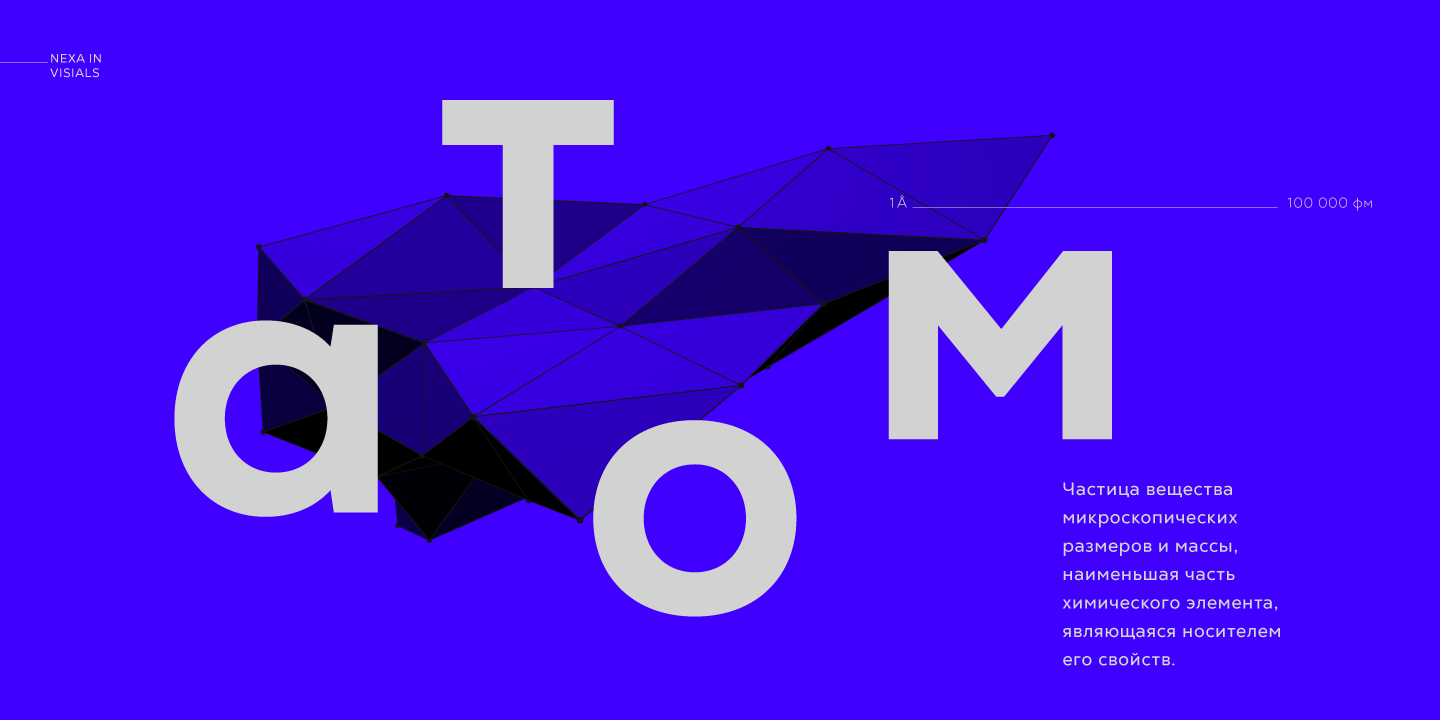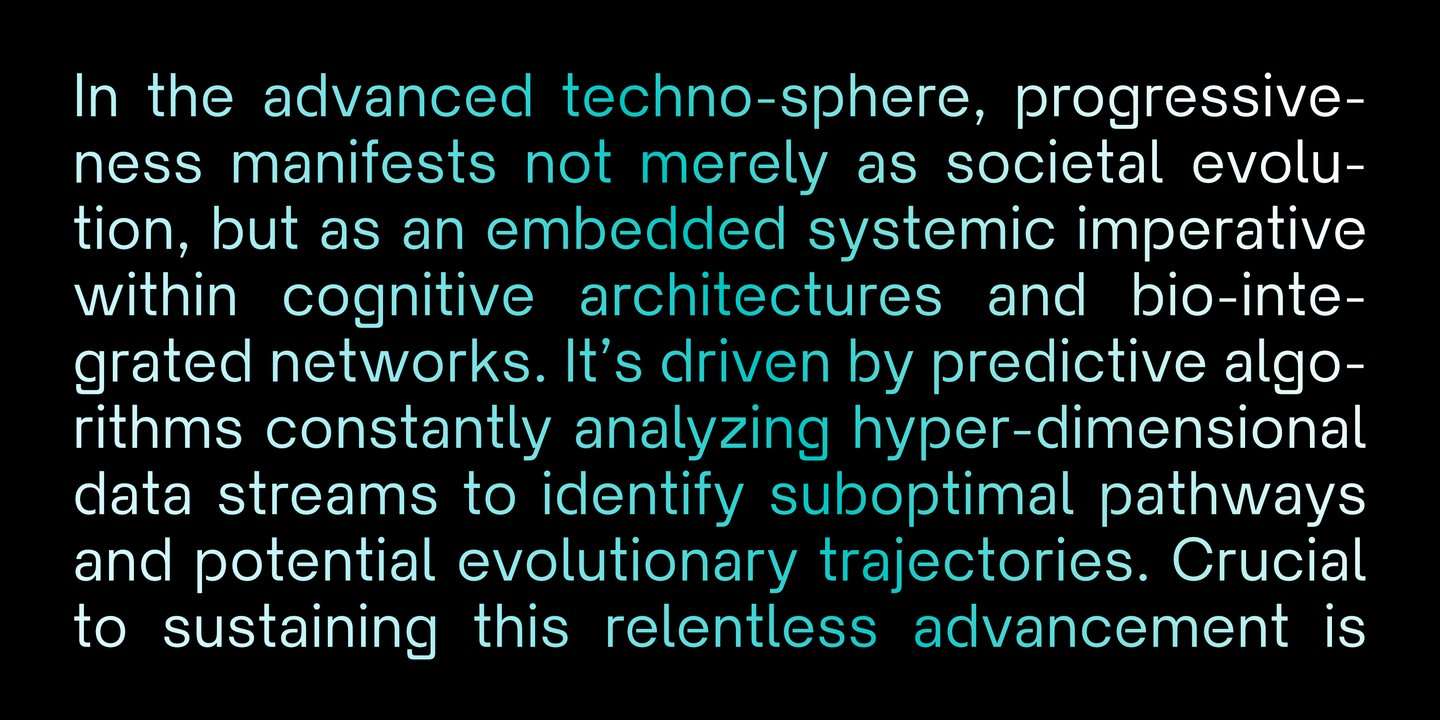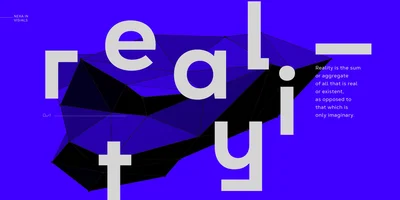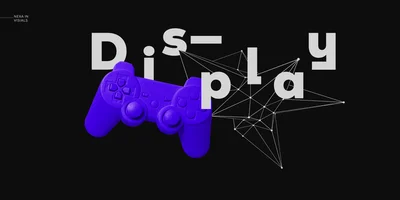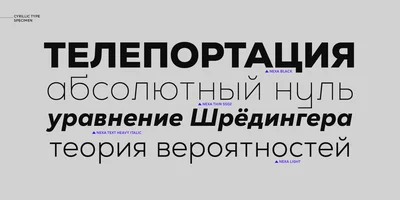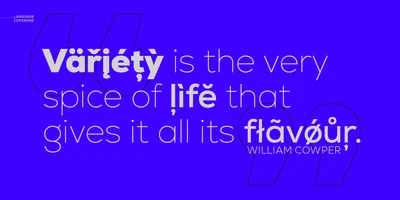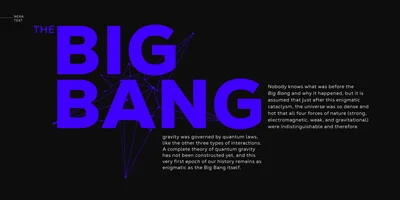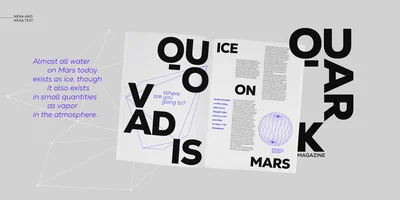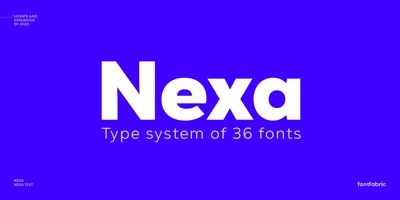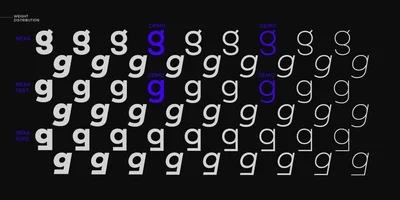
Nexa vs Termina
Nexa and Termina are both sans-serif typefaces sharing a geometric foundation. Where Nexa leans modern, Termina brings wide. Compare which suits your Branding project.
Design overlap:60%
Nexa
Geometric
BoldModern
Display
Termina
GeometricWide
Bold
Display
| Feature | Nexa | Termina |
| Language Support | latin, latin-extended, cyrillic | latin, latin-extended |
| Source | Fontfabric | Fort Foundry |
Recommended: Nexa
- modern design character
- From fontfabric
Consider: Termina
- wide design character
- From fort-foundry